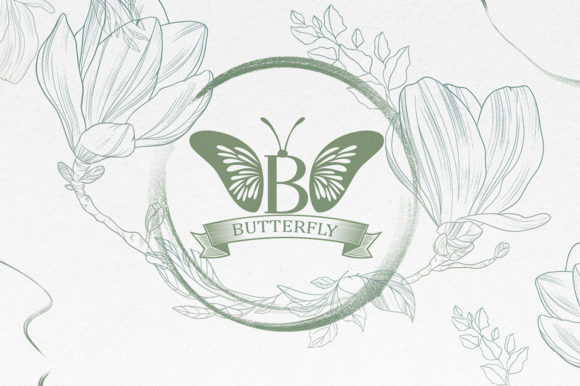
The Magical World of Butterfly Monogram Font
I’ll never forget the time I was working on a project for a client who wanted a custom monogram for their wedding stationery. I had spent hours browsing through font libraries, but nothing seemed quite right. That was when I stumbled upon the Butterfly Monogram Font. It was love at first sight! ✨ This lovely and genuine decorative font has since become a staple in my design toolkit, and I’m excited to share its magic with you.
So, what makes the Butterfly Monogram Font so special? Let’s dive into the good stuff and a few quirks I’ve discovered.
- ✨ Elegant and sophisticated design that’s perfect for high-end projects
- ✅ Extensive character set, including OpenType features and glyphs
- 💫 Works beautifully in a variety of contexts, from wedding stationery to branding and packaging
- 🎨 Highly versatile and can be used for both digital and print projects
While the Butterfly Monogram Font is an amazing addition to any design project, there are a few things to keep in mind:
- ⚠️ Some of the more intricate details may not render well at smaller font sizes
- 🤔 Limited availability of stylistic alternates, which may limit creative flexibility
The Story Behind Butterfly Monogram Font
The Butterfly Monogram Font was designed by a talented typographer who wanted to create a font that would evoke the beauty and elegance of nature. Inspired by the delicate wings of butterflies, this font features intricate details and flowing lines that are sure to add a touch of magic to any design project.